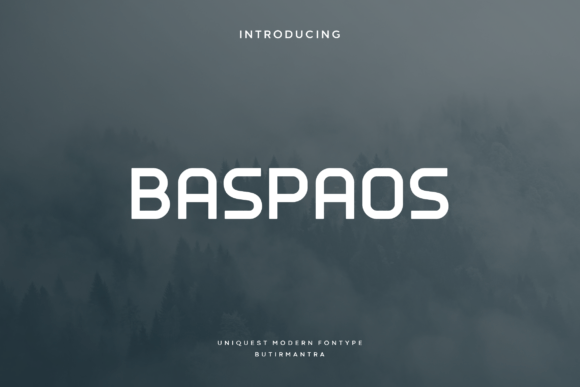
Baspaos Font: The Ultimate Choice for Modern and Elegant Designs
Are you looking for a font that can elevate your design game and make your headlines, branding, and logo designs stand out? Look no further than Baspaos Font. This cool and neat display font is perfect for designers who want to add a touch of modernity and elegance to their work. In this article, we’ll dive into the features and benefits of Baspaos Font and explore why it’s a great choice for your design needs.
What is Baspaos Font?
Baspaos Font is a display font designed to make a statement. Its simple yet modern and elegant look makes it perfect for headlines, branding, and logo designs. The font features smooth angular shapes that give it a classy and sophisticated feel. Whether you’re designing a logo, brochure, or website, Baspaos Font is sure to make your design stand out.
Key Features of Baspaos Font
- Modern and Elegant Design: Baspaos Font boasts a modern and elegant design that is perfect for designers who want to create a sophisticated look.
- Smooth Angular Shapes: The font features smooth angular shapes that give it a classy feel.
- Perfect for Headlines and Branding: Baspaos Font is designed specifically for headlines, branding, and logo designs, making it a great choice for designers who want to make a statement.
- Easy to Read: Despite its elegant design, Baspaos Font is easy to read, making it perfect for use in a variety of design projects.
Benefits of Using Baspaos Font
So, why should you choose Baspaos Font for your design needs? Here are just a few benefits of using this amazing font:
Why Choose Baspaos Font?
- Stand Out from the Crowd: With Baspaos Font, you can create designs that stand out from the crowd and grab attention.
- Elevate Your Brand: Baspaos Font is perfect for branding and can help elevate your brand to the next level.
- Versatile: Baspaos Font can be used in a variety of design projects, from logos and brochures to websites and more.
In conclusion, Baspaos Font is a cool and neat display font that works great for headlines, branding, and logo designs. Its modern and elegant design, smooth angular shapes, and ease of use make it a great choice for designers who want to create sophisticated and eye-catching designs. Whether you’re a professional designer or just starting out, Baspaos Font is a great addition to your font library.